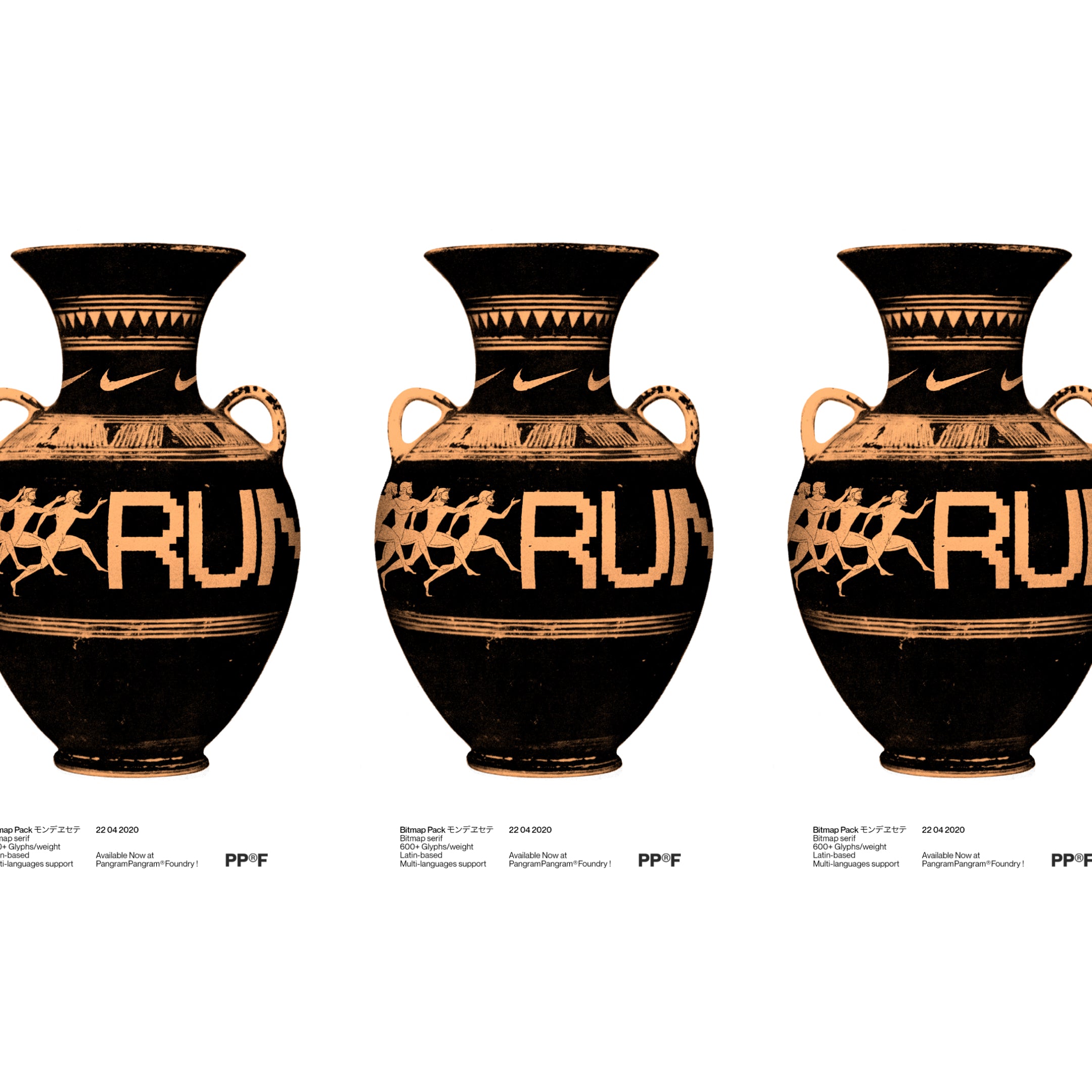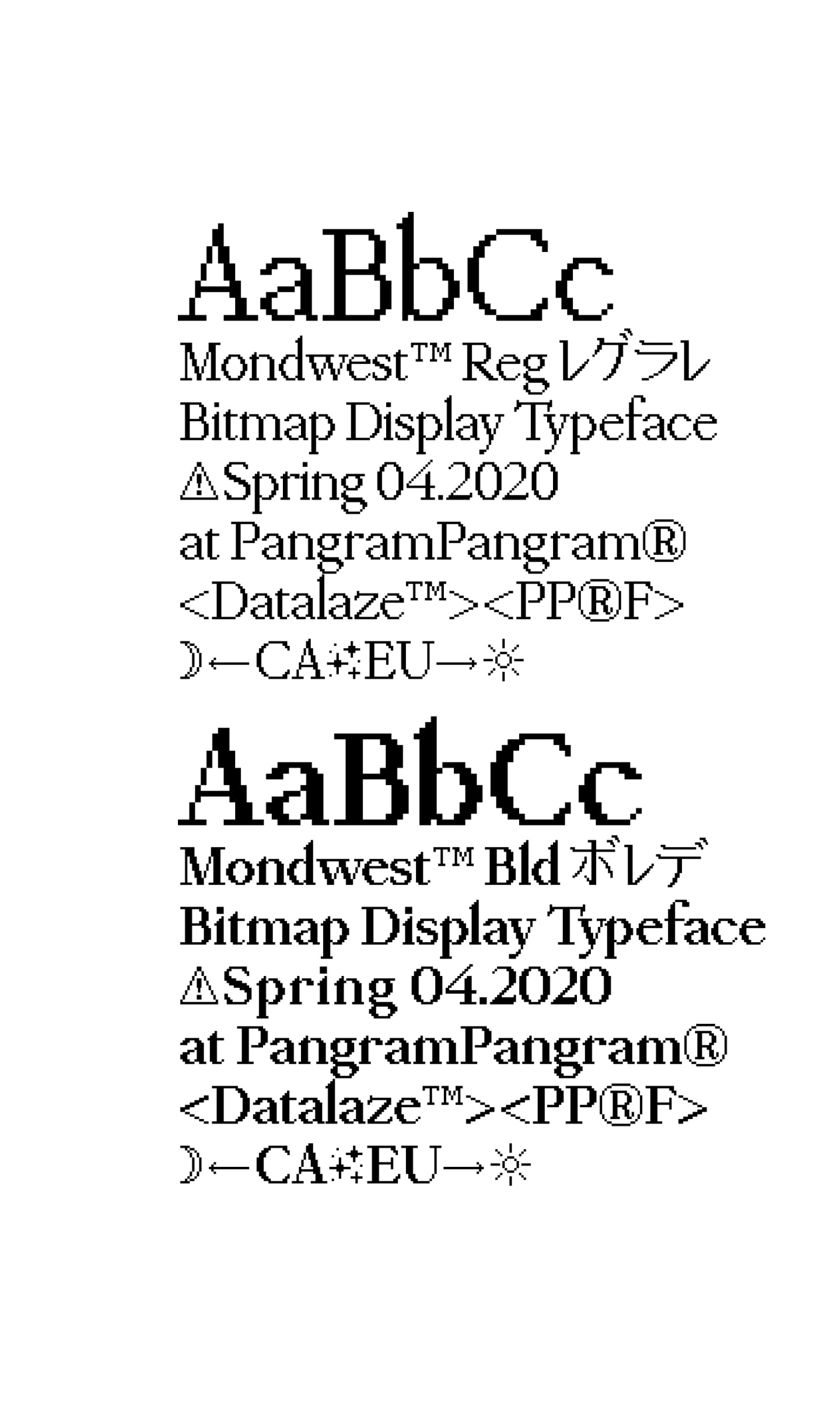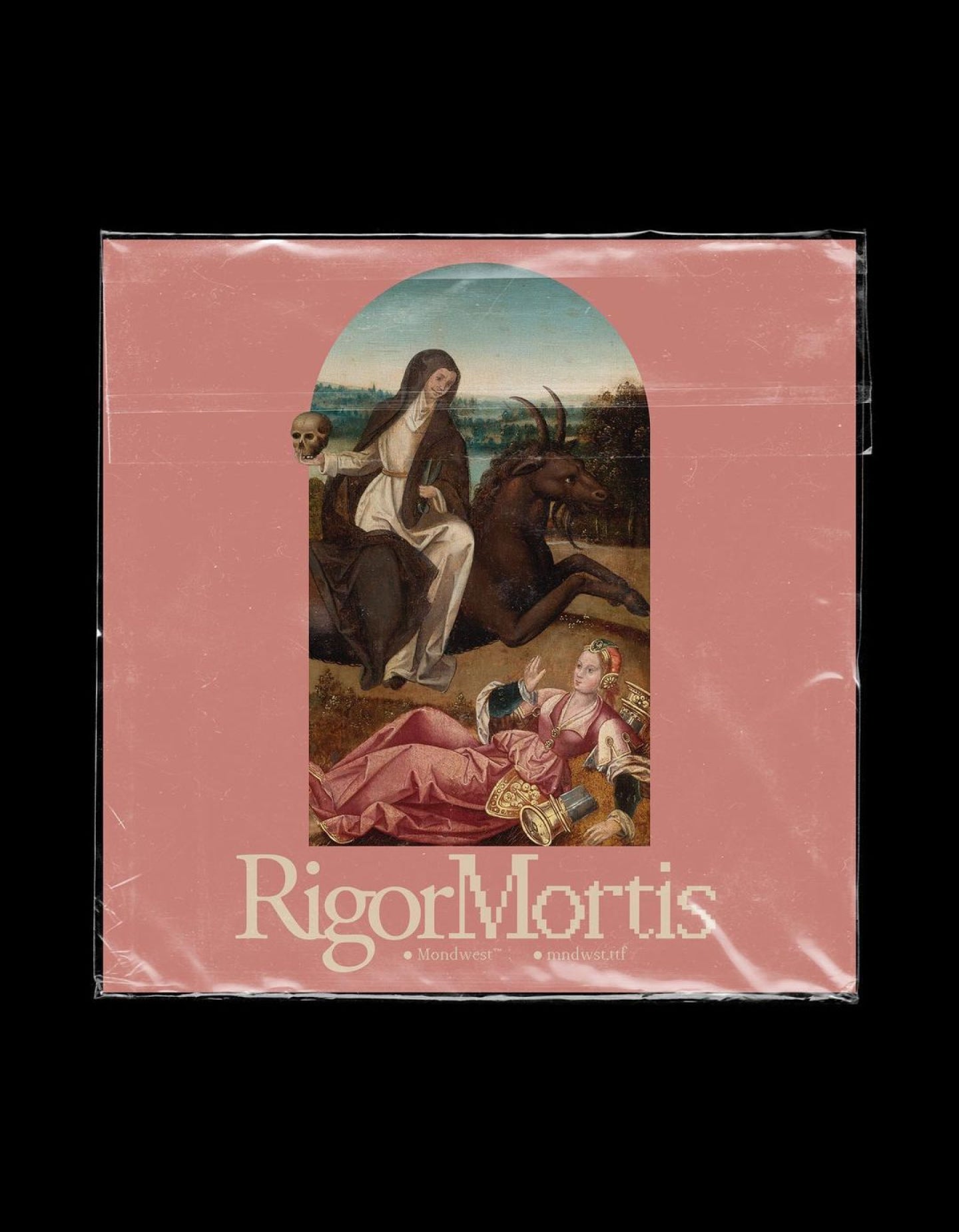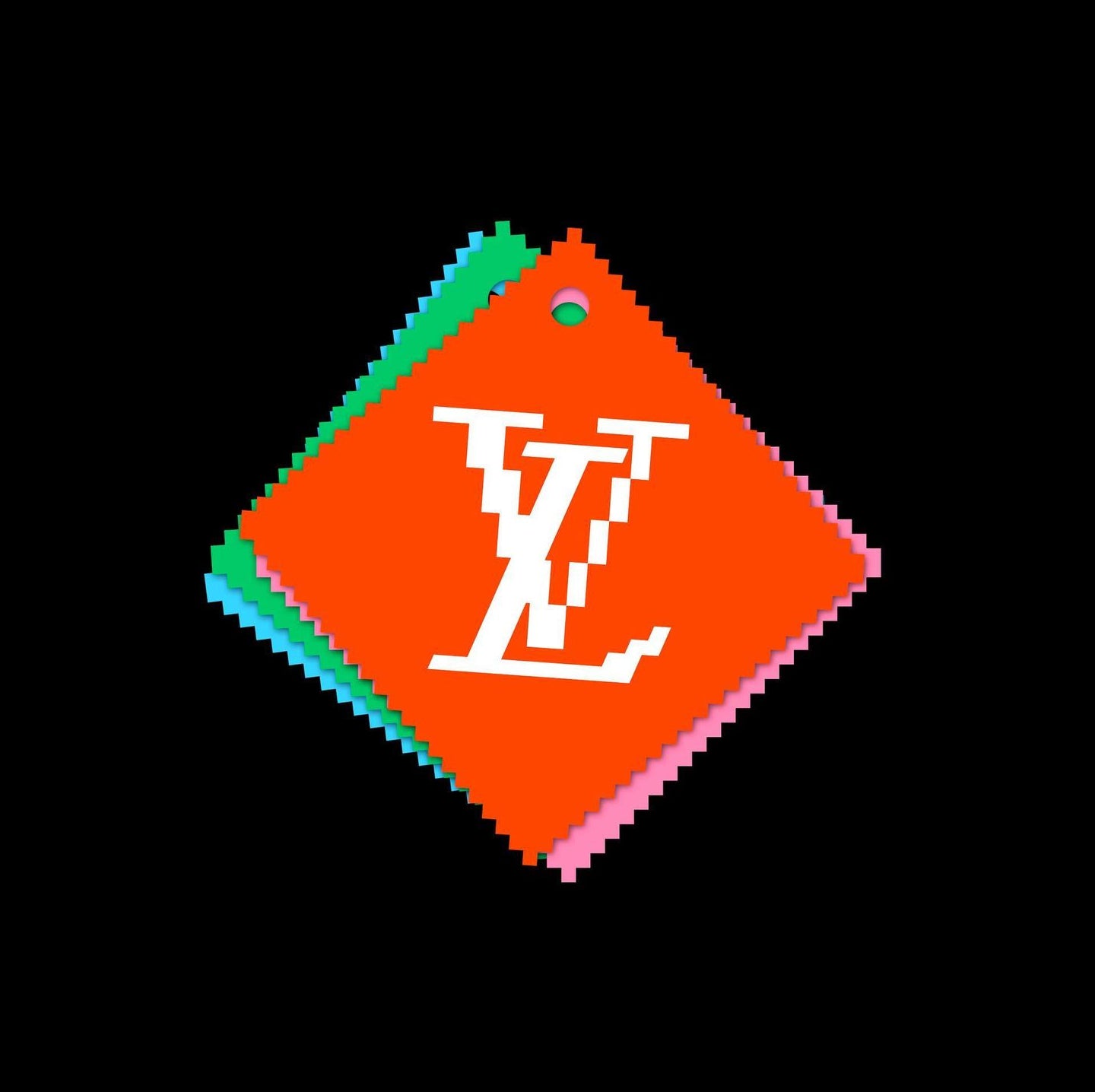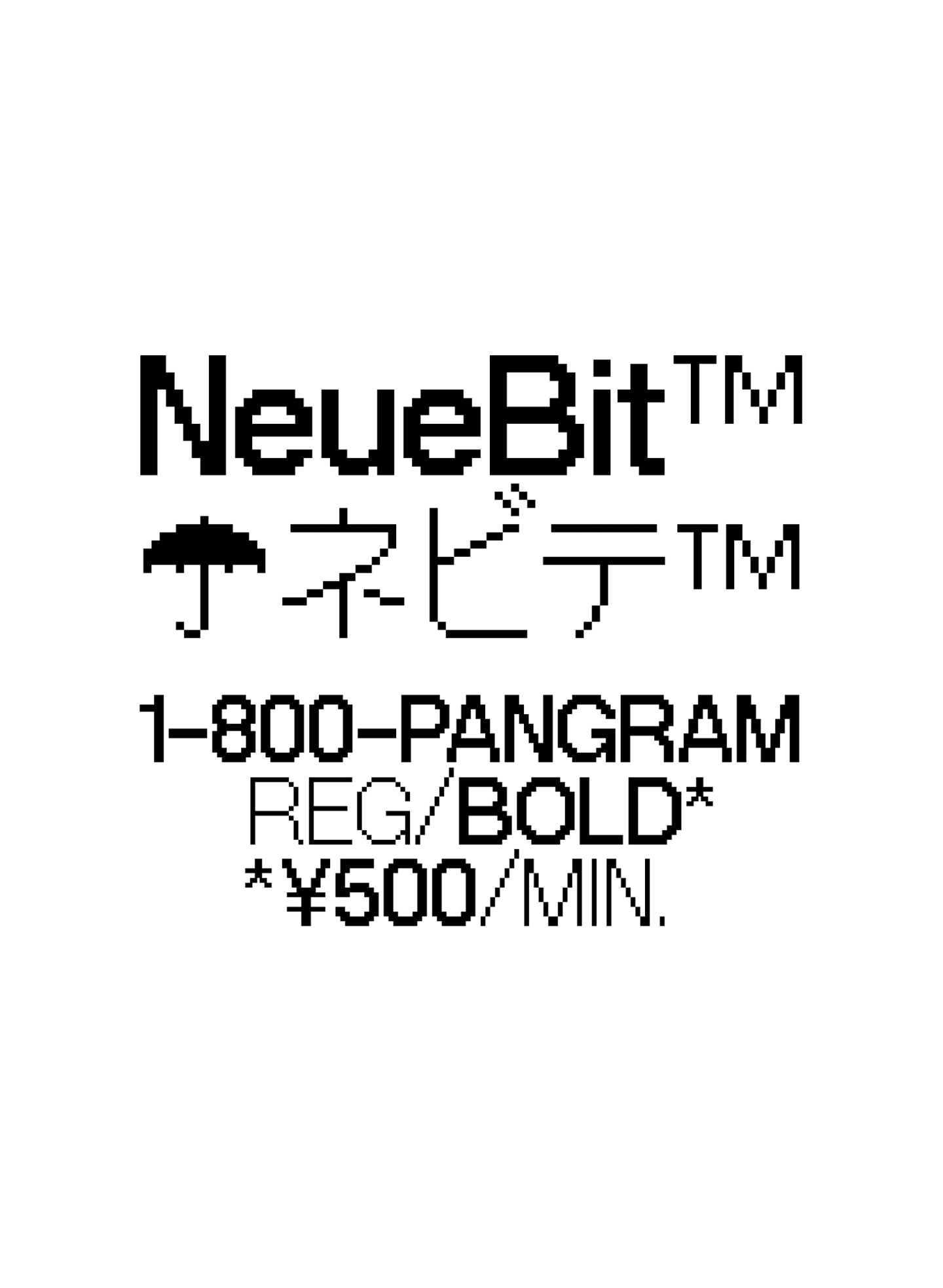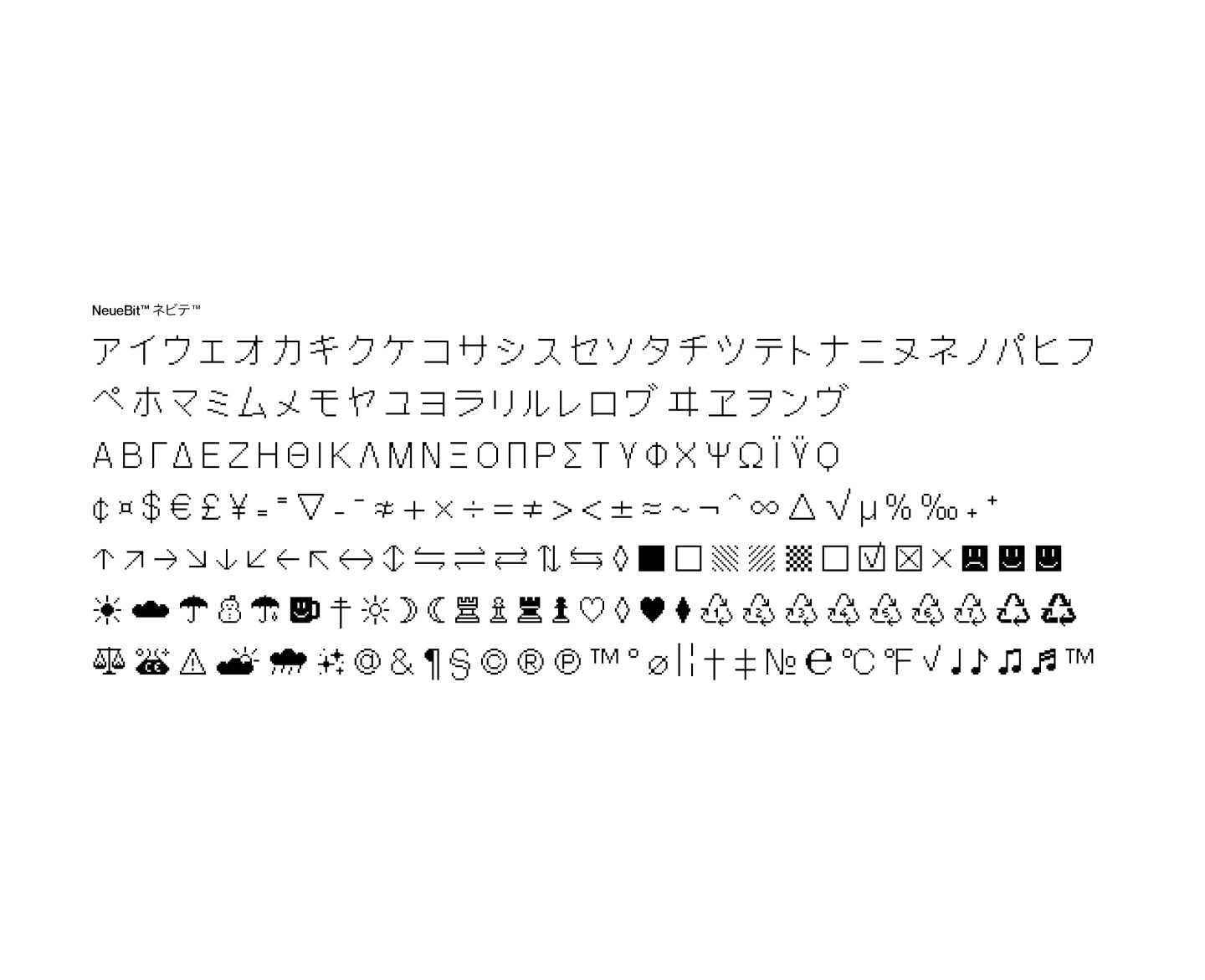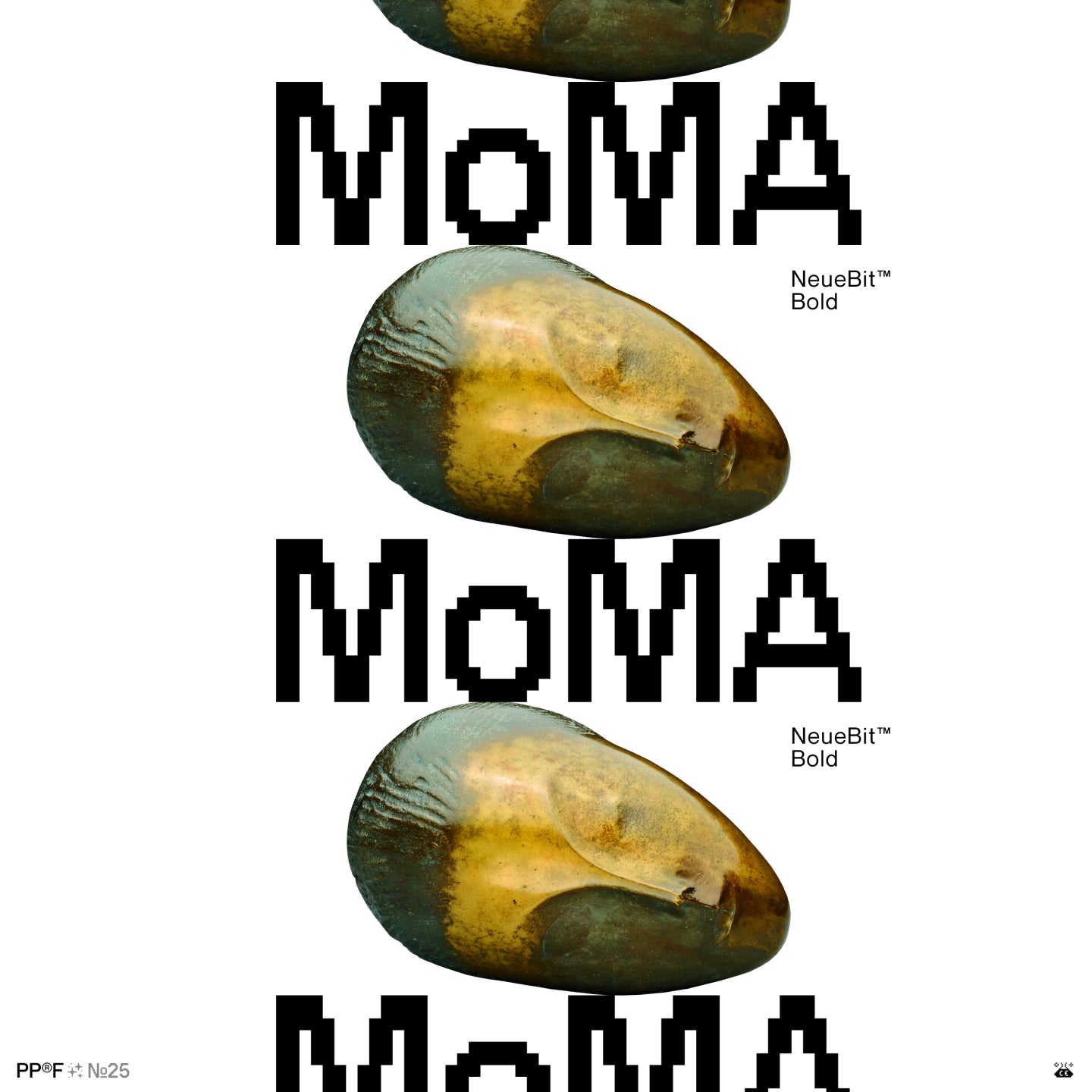
Bitmap Font Pack
Inspired by the classic Grotesks and Serifs of our era
Pixel-perfect nostalgia.
Designed to be your next go to pixel font, these bitmap fonts were inspired by the classic Grotesks and Serifs of our era. With more than 600 characters, symbols and icons these were crafted for maximum legibility, versatility and pairing capacity. The digitalization was pushed further reimagining these timeless classics to a more futuristic/brutalist yet precise aesthetic. The meticulously crafted bitmap typeface pack will definitely uplift your next designs.